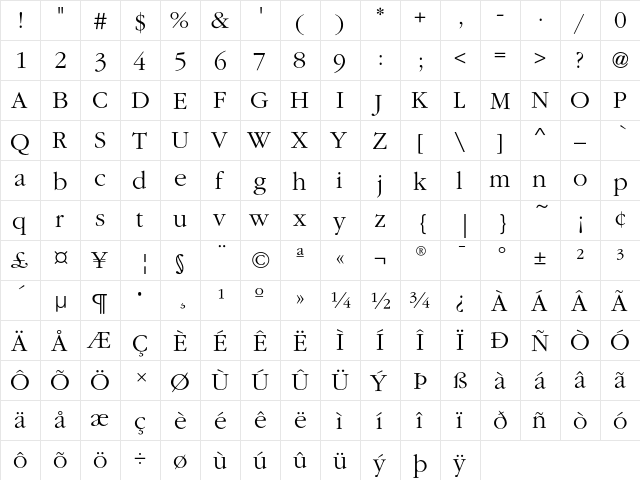
GaramondEF Light
Design Context for GaramondEF Typeface
GaramondEF offers clean, dependable letterforms without strong stylistic allegiance, making it a practical choice for designers who need flexibility. The delicate stroke weight brings airiness and refinement to layouts.
Pro Tip: Pair GaramondEF with a font of contrasting weight or personality to build a more expressive typographic hierarchy.